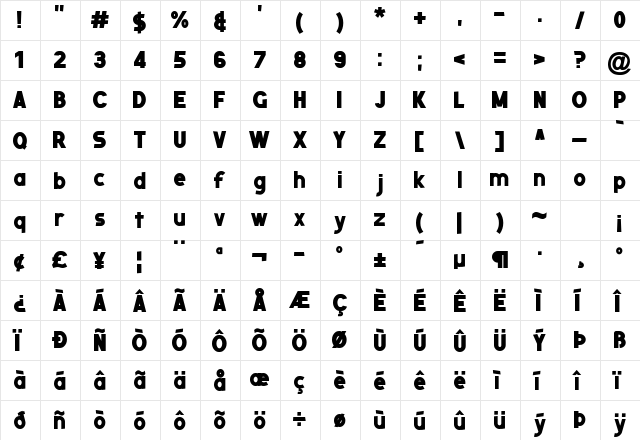
Nuernberg Messe Regular
| Designer | Dan Johnston |
Design Context for Nuernberg Messe Typeface
Nuernberg Messe is a composed and adaptable typeface that performs quietly and consistently across a wide range of design contexts.
Pro Tip: Use Nuernberg Messe in both headline and body roles to test its range before committing to a single application.